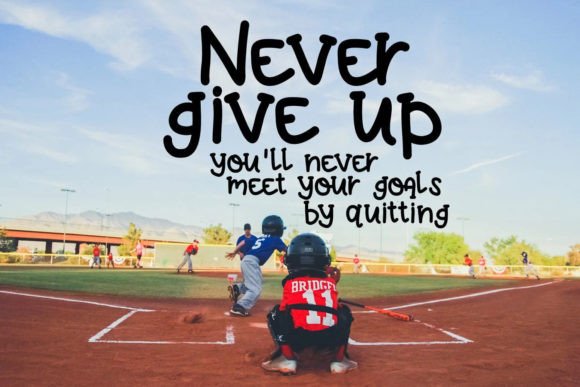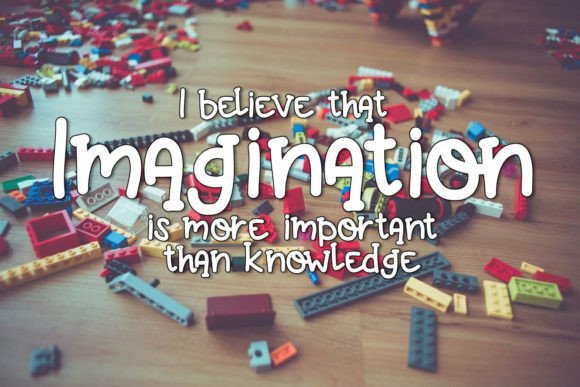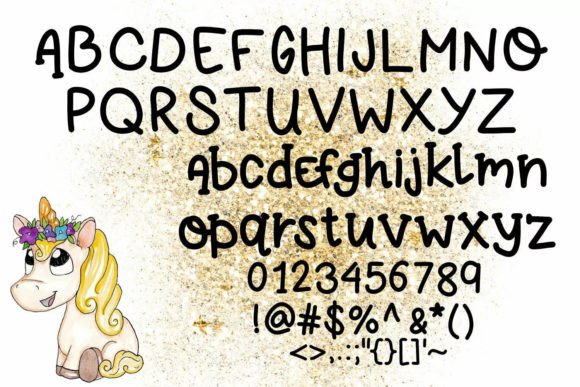
About Unicorn Farts Font
“Unicorn Farts” is a playful and whimsical handwritten font designed to bring a fun and lighthearted touch to your projects. With its thick lines, it’s particularly well-suited for cutting machines, making it a versatile choice for various crafting and design applications.
The name “Unicorn Farts” adds a touch of humor and creativity to the font, suggesting a playful and magical theme. This font is perfect for creating designs that evoke a sense of whimsy and fantasy. Whether you’re working on cards, water bottles, stickers, or any other creative project, “Unicorn Farts” is sure to add a fun and colorful element.
The thick lines of the font make it easy to work with cutting machines, ensuring that your designs come out clean and well-defined. This feature makes “Unicorn Farts” a practical choice for those who enjoy crafting and DIY projects, as it can be easily incorporated into a variety of materials.
In summary, “Unicorn Farts” is a delightful and fun handwritten font that brings a touch of magic to your designs. With its thick lines and playful vibe, it’s an excellent choice for crafting, cutting machine projects, and any creative endeavor where a whimsical and lighthearted font is desired. The possibilities truly are endless with this imaginative and charming font.